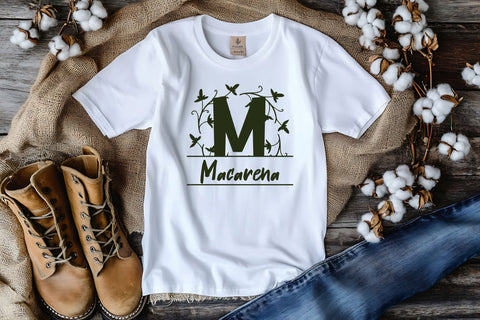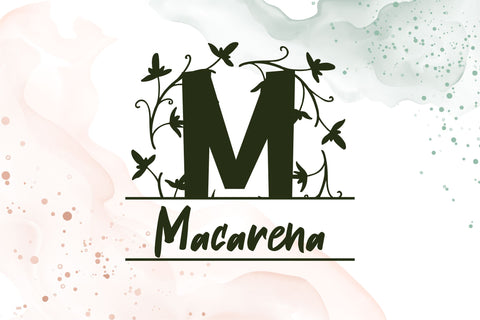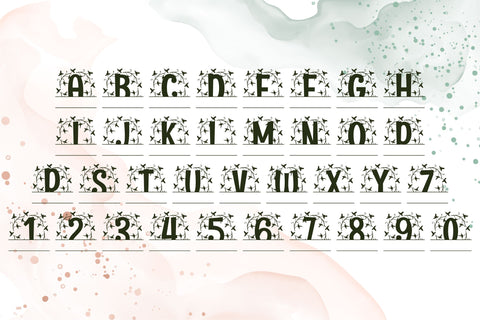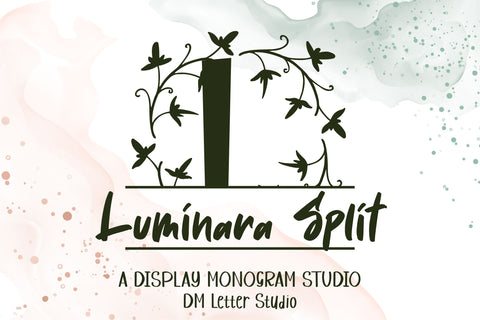
Luminara Split Monogram – Elegant Serif Font with a Personalizable Split Design
Luminara Split Monogram is an elegant serif font built for elegance, refinement, and practical personalization. Designed with a clean horizontal split across each uppercase letter, this typeface allows you to easily insert names, initials, dates, or words into the center—perfect for crafting high-end monograms, wedding signs, custom gifts, and branded logos.
Its timeless serif structure features sculpted curves, balanced weights, and subtle flair that evokes a sense of prestige without feeling overly ornate. From minimalist wedding invitations to elaborate Cricut craft projects, Luminara Split Monogram brings a sense of poise to every design. The graceful serifs and clean lines make each letter readable and visually appealing in both print and digital formats.
This font is especially well-suited for makers, crafters, and small business owners. With its split design, you can personalize each monogram with custom names or dates—ideal for creating vinyl decals, custom tumblers, engraved wood signs, or framed wedding prints. It also performs beautifully in digital design software like Canva, Adobe Illustrator, Photoshop, and Procreate, making it a favorite among stationery designers and brand creators.
Whether you're working on boutique packaging, corporate branding, or personalized holiday merchandise, Luminara Split Monogram gives you a refined, professional look that’s both versatile and memorable.
Refined Split Serif Design: Elegant uppercase letters with horizontal openings for adding names or text.
Ideal for Custom Projects: From weddings and gifts to logos and vinyl cutting.
Full Character Set: A–Z, numbers, punctuation, multilingual accents.